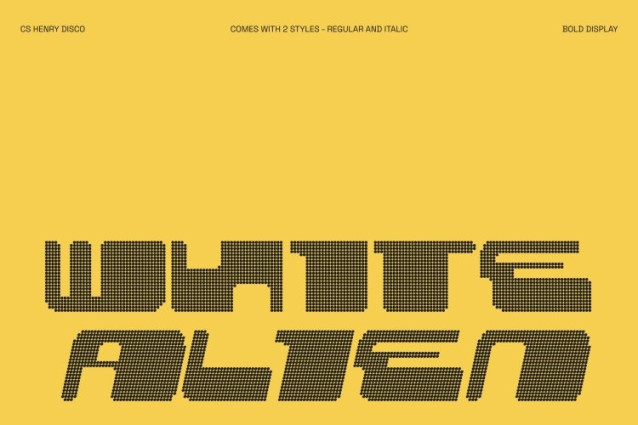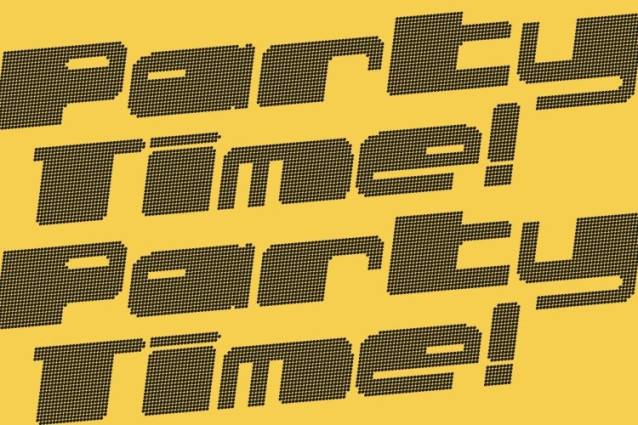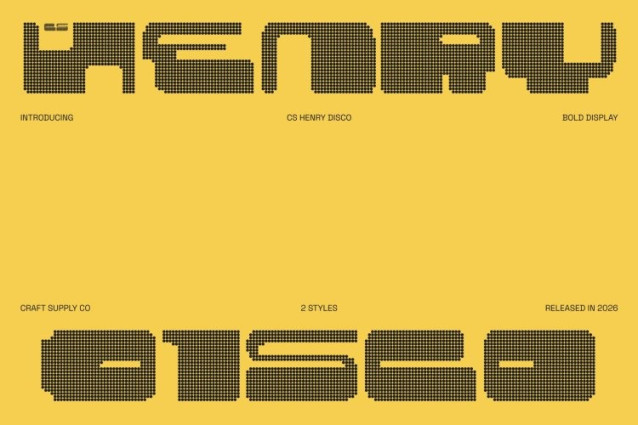
CS Henry Disco Font
CS Henry Disco Font – This is a Y2K-inspired display font designed to capture the loud, confident spirit of early 2000s visuals. Featuring bold outlines and striking proportions, this font delivers maximum visual impact with every word. Its expressive construction makes it perfect for display use, where energy, attitude, and presence matter most.
Shimmering Futurism with Digital Attitude
Inspired by the optimistic futurism of the Y2K era, radiates a shimmering, high-energy aesthetic. The strong outlines enhance clarity while creating a powerful silhouette that feels dynamic and tech-driven. This futuristic glow gives the font a sense of movement, making designs feel alive, bold, and visually electric.
Retro-Futuristic Charm Refined for Modern Design
While rooted in early 2000s nostalgia, this is carefully refined for today’s creative needs. Its letterforms balance playful retro influence with modern structure, allowing designers to evoke Y2K culture without losing readability or relevance. The result is a font that feels nostalgic, confident, and refreshingly current.
Perfect for Digital Branding, Music, and Party Visuals
This font excels in digital branding, music artwork, party posters, event promotions, and social media graphics. Whether used for album covers, club visuals, fashion drops, or bold online campaigns, it delivers futuristic energy, playful glamour, and unmistakable Y2K flair turning every design into a visual statement.